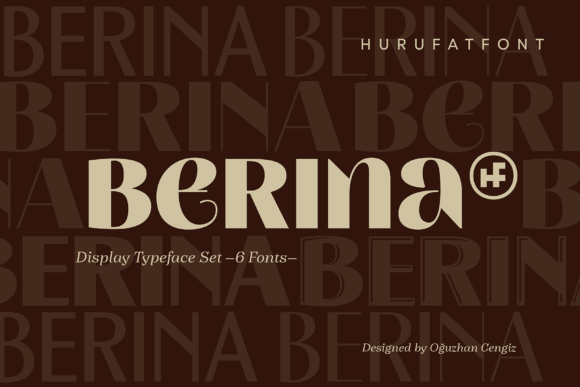
The Berina Font: A Minimalist’s Dream Come True
I’ll never forget the time I was working on a branding project for a new coffee shop. My client wanted a modern, sleek look that would appeal to the young and trendy crowd. I spent hours scouring the internet for the perfect font, but nothing seemed quite right. That was until I stumbled upon Berina, a minimal and neat display font that instantly caught my eye. ✨ In this article, I’ll share my experience with Berina, its features, and how to make the most of it in your designs.
An Honest Review of Berina Font
What I Love About Berina
- ✅ Clean and Minimalist Design: Berina’s simple, uncluttered design makes it perfect for headlines, titles, and short paragraphs.
- ✅ High Versatility: This font can be paired with a wide range of projects, from modern branding to elegant wedding invitations.
- ✅ Easy to Read: Berina’s clear and concise design ensures that your text is always legible, even at smaller font sizes.
- ✨ Aesthetic Appeal: The font’s sleek lines and curves add a touch of sophistication to any design.
While Berina is an excellent font, it’s not without its limitations. ⚠️ Here are a few things to keep in mind:
- 🤔 Limited Use for Body Text: Berina is best suited for display text, such as headlines and titles. It’s not ideal for longer paragraphs of body text.
- ⚠️ May Not Be Suitable for All Languages: As with any font, Berina may not support all languages or special characters.
The Story Behind Berina Font
Berina was designed with the modern designer in mind. Its creator wanted to craft a font that was both clean and elegant, yet versatile and easy to use. 💻 The result is a font that’s perfect for a wide range of projects, from branding and advertising to packaging and editorial design.
Q: What is Berina font best used for?
Berina is best used for display text, such as headlines, titles, and short paragraphs. It’s perfect for projects that require a clean and modern look.